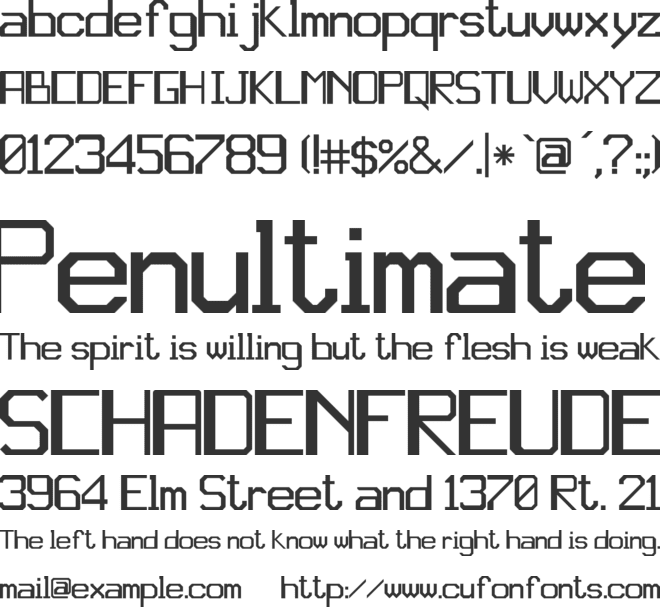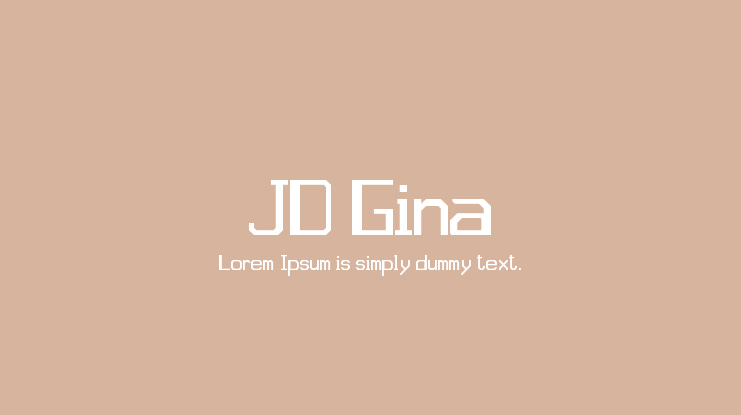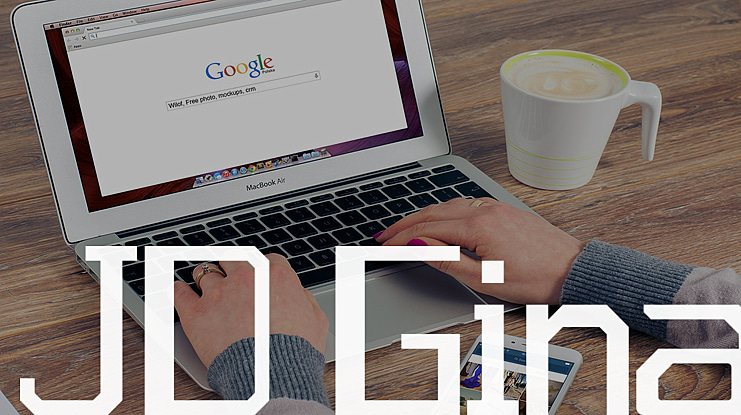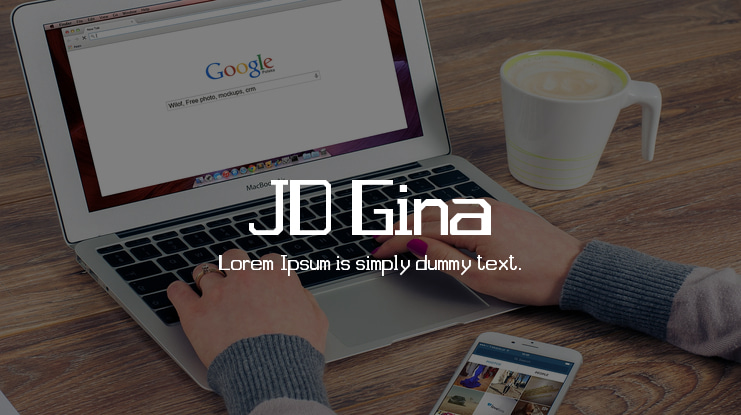
JD Gina Font
Jecko Development
JD Gina has more than 180 glyphs, including uppercases, lowercases, accents and a wide series of symbols. It's a general purpose font.
JD Gina is a celebrative font.